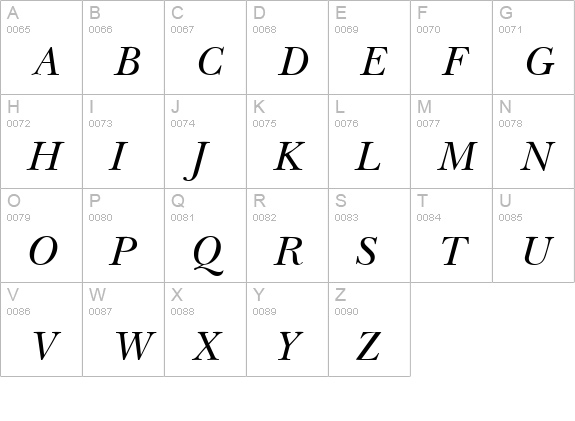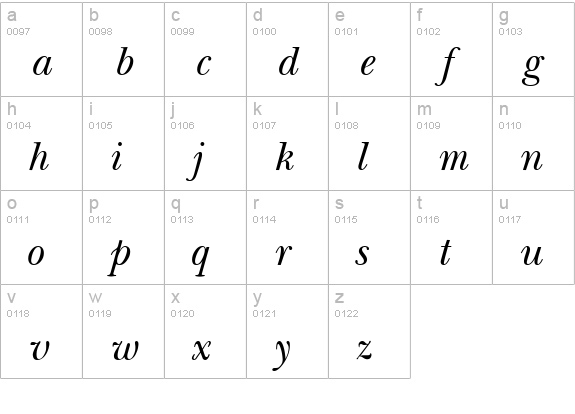
New Italic Font Details
New Italic is a distinctive, italic variant in the New typeface family \xE2\x80\x94 well suited to design and typography projects.